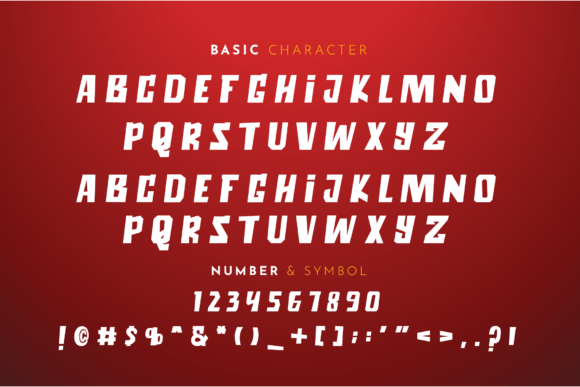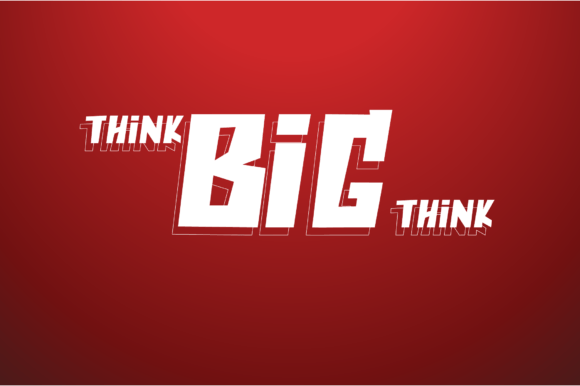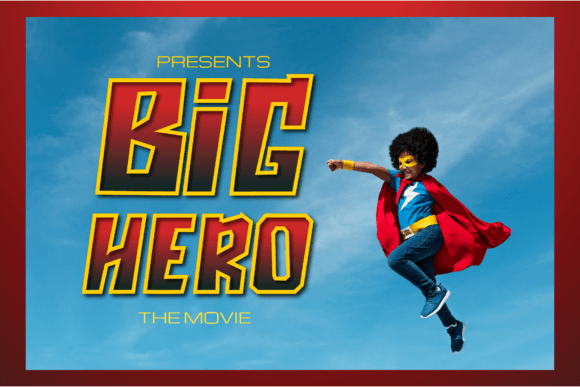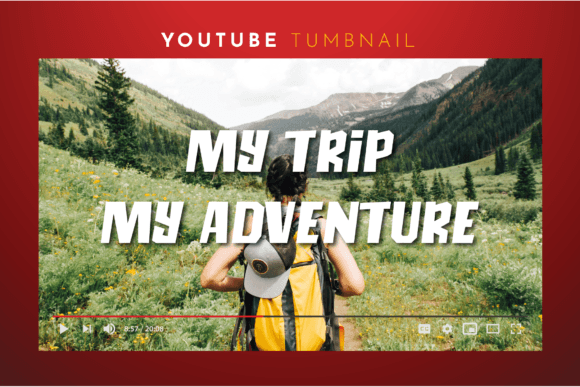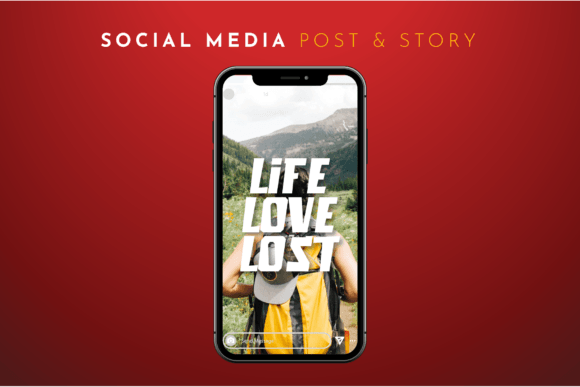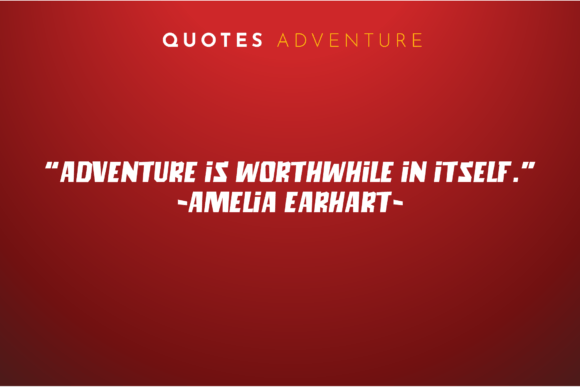
The Power of Big Shadows Font: A Designer’s Best Friend
I’ll never forget the time I was working on a project for a trendy new coffee shop. My client wanted a bold, eye-catching logo that would stand out on their social media feeds. I scoured the internet for the perfect font, but nothing seemed quite right. That was until I stumbled upon Big Shadows Font. 💡
This cool and bold display font has been a game-changer for my designs ever since. Its large and striking letters are designed to make a statement, making it perfect for posters, headlines, and logos. In this article, I’ll share my honest review of Big Shadows Font, provide a practical guide on how to use it, and explore some similar fonts you might love.
- ✅ Bold and Impactful: Big Shadows Font is perfect for designs that require a bold and attention-grabbing look.
- ✅ Modern and Edgy: The font’s modern and edgy appearance makes it ideal for designs that need a touch of attitude.
- ✅ Easy to Read: Despite its bold design, Big Shadows Font is surprisingly easy to read, even in smaller sizes.
- ✅ Versatile: This font can be used for a wide range of designs, from posters and logos to social media graphics and more.
- ⚠️ Limited Use Cases: While Big Shadows Font is amazing for bold designs, it may not be the best choice for body text or more formal designs.
- ⚠️ Glyph Limitations: Some users have reported that the font could benefit from more glyphs and special characters.
The Story Behind Big Shadows Font
Big Shadows Font was designed by a team of creatives who wanted to create a bold and impactful font that would make a statement. Inspired by urban landscapes and modern architecture, the font’s designer aimed to capture the essence of city living in a digital font. The result is a font that’s both modern and edgy, perfect for designs that require a touch of attitude.
| Font Name | Big Shadows Font |
| Author | Nerdstudio |
| What is Big Shadows Font best used for? | Big Shadows Font is perfect for bold designs like posters, headlines, and logos. |
| Is Big Shadows Font easy to read? | Despite its bold design, Big Shadows Font is surprisingly easy to read, even in smaller sizes. |